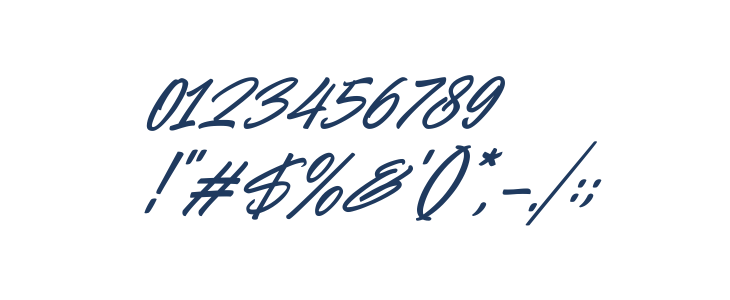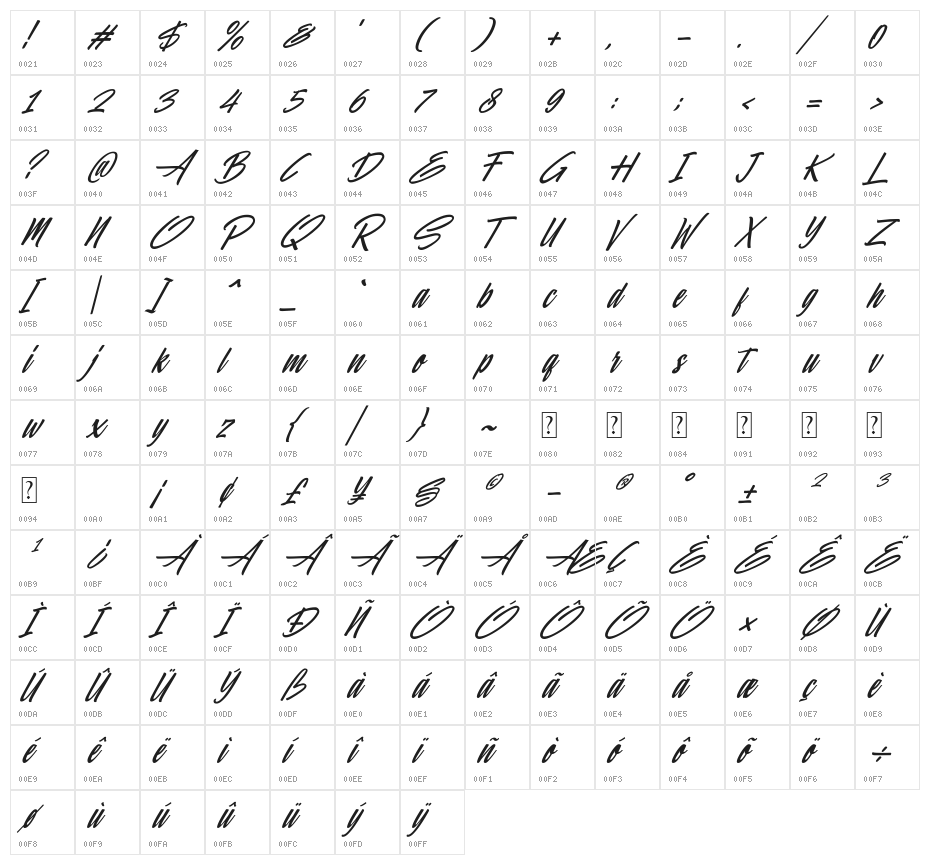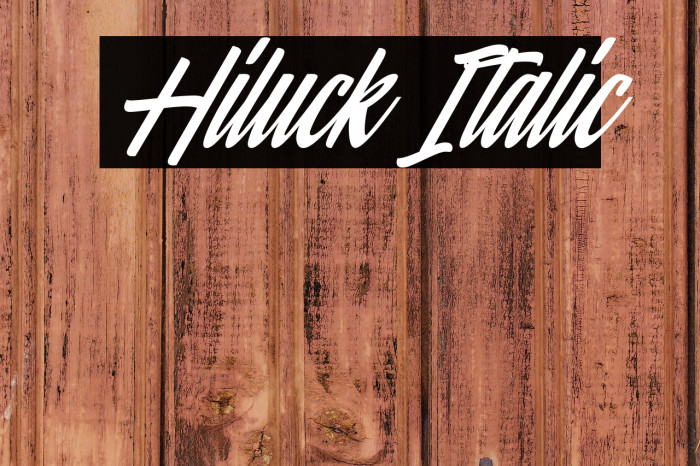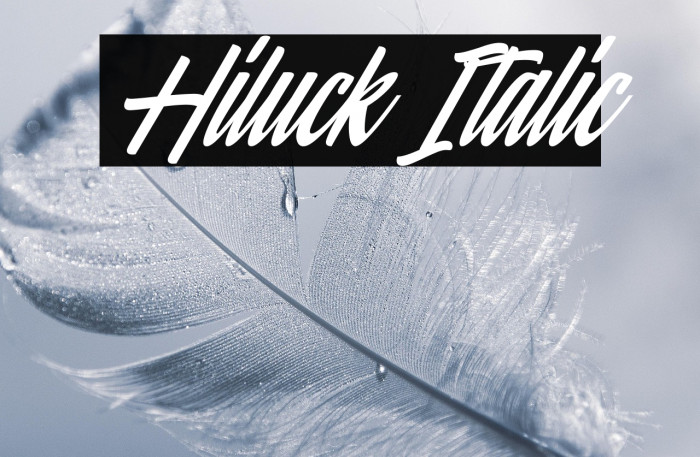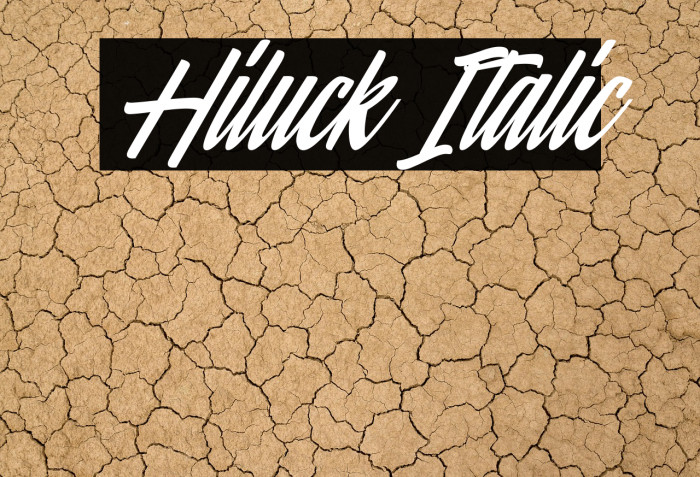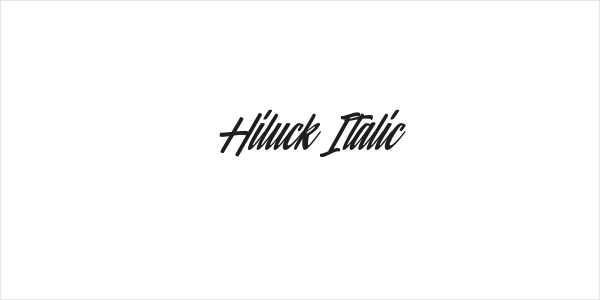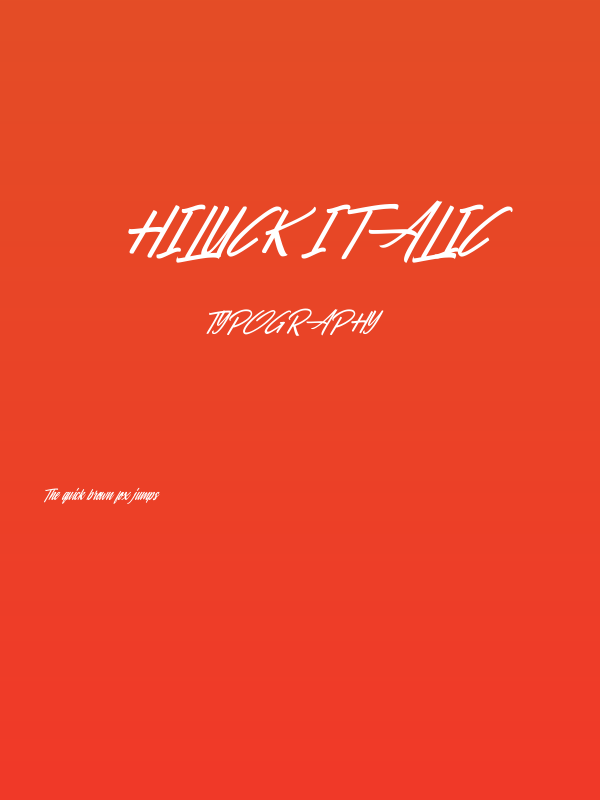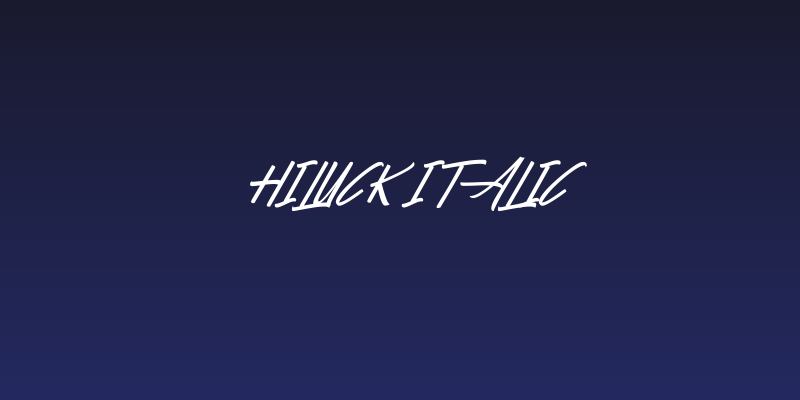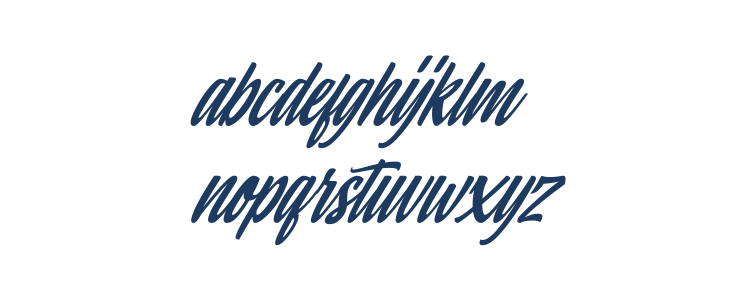
Hiluck Italic Font
Hiluck Italic Description
This font exhibits a dynamic and flowing script style, characterized by its slanted, cursive letterforms that convey a sense of motion and elegance. The strokes are smooth and connected, giving it a handwritten appearance. The uppercase letters are bold and prominent, while the lowercase letters maintain a consistent flow, enhancing readability. The numbers and special characters are designed to match the overall script style, ensuring uniformity across all characters. This font is ideal for projects that require a personal touch or a sense of sophistication.